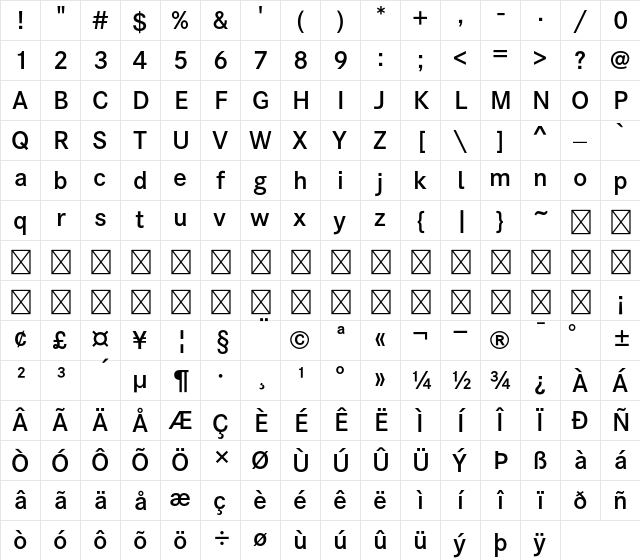
A P-OTF Shuei KakuGo Kin Std B
Style: B
Designer: Dai Nippon Printing Co., Ltd.
Complete A P-OTF Shuei KakuGo Kin Std B glyph index. Displaying only characters natively supported by A P-OTF Shuei KakuGo Kin Std B font.
Design Context for A P-OTF Shuei KakuGo Kin Std
A P-OTF Shuei KakuGo Kin Std is a composed and adaptable typeface that performs quietly and consistently across a wide range of design contexts.